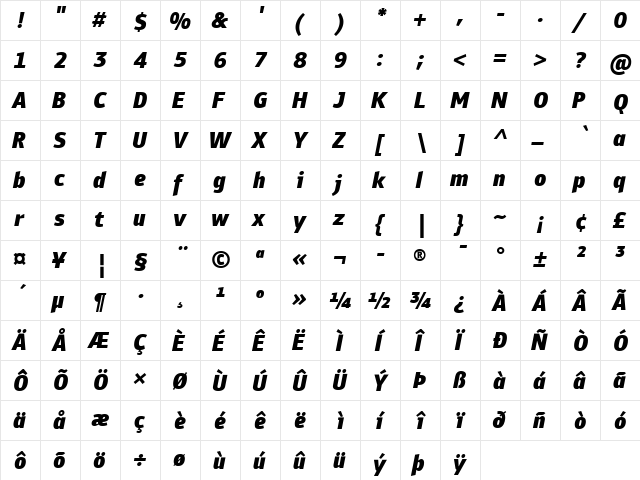
PF Bulletin Sans Pro Black Italic
| Foundry | Parachute蠗orldwide |
| Designer | Panos Vassiliou |
Design Context for PF Bulletin Sans Pro Typeface
PF Bulletin Sans Pro offers clean, dependable letterforms without strong stylistic allegiance, making it a practical choice for designers who need flexibility. The dynamic lean of this cut emphasises speed and emphasis in any layout.